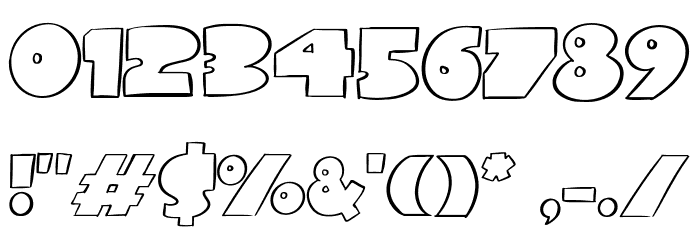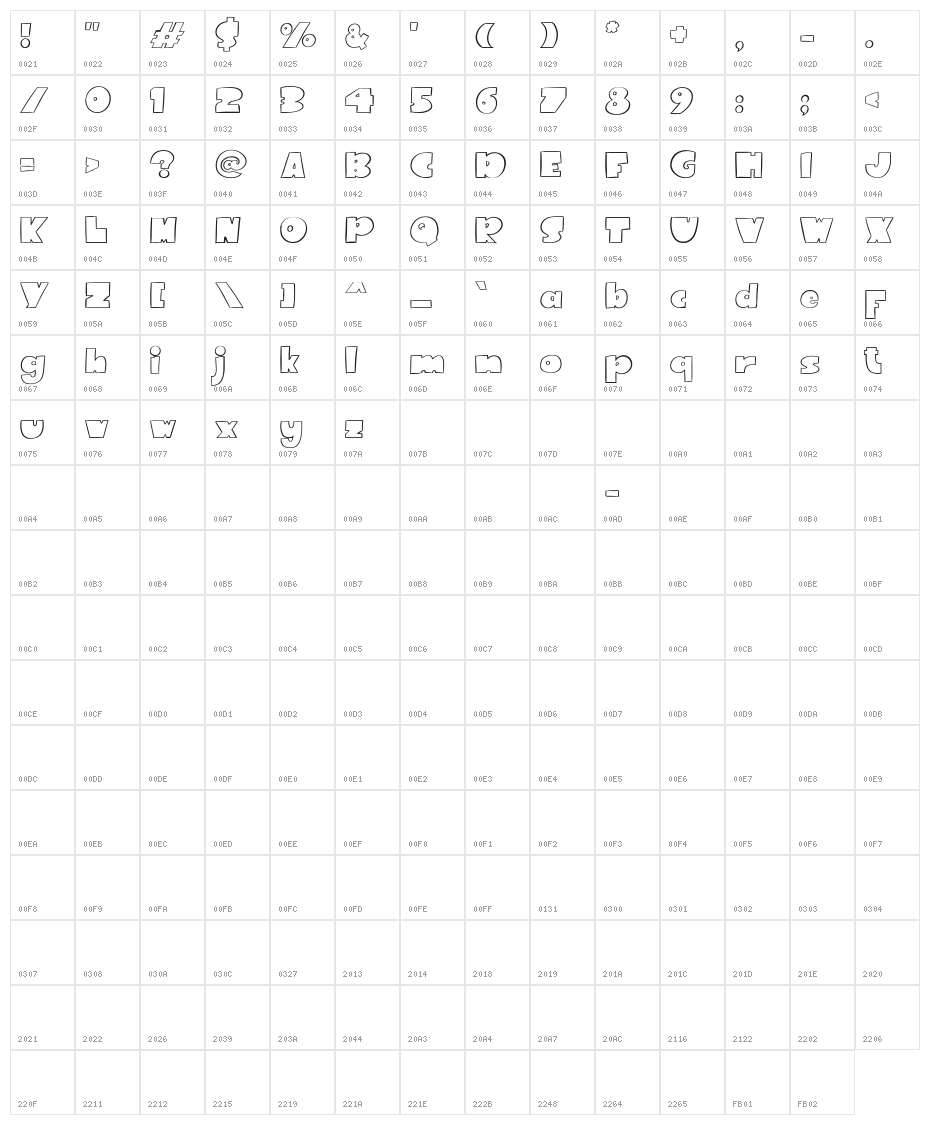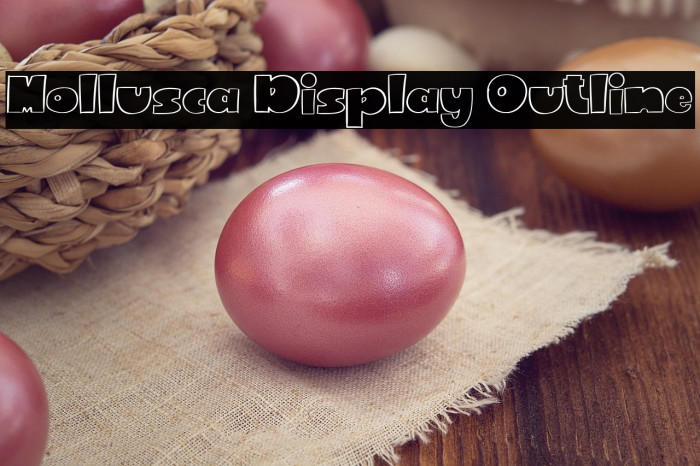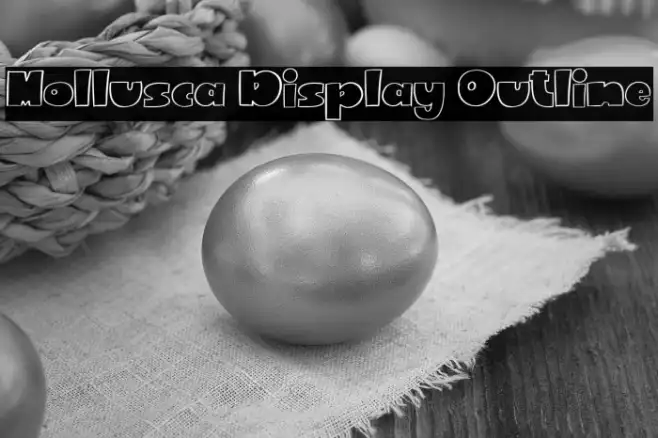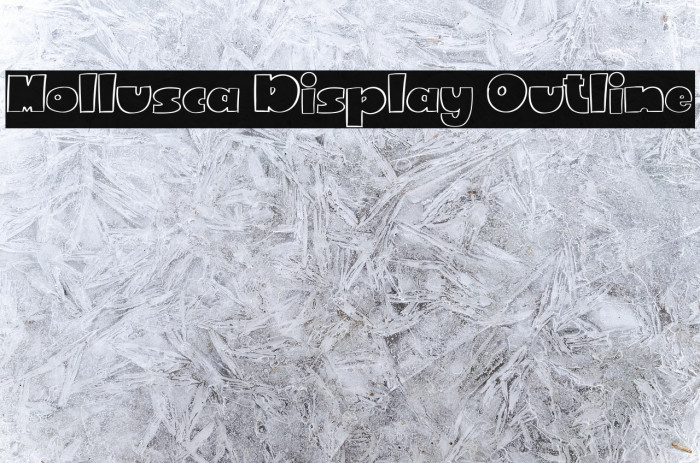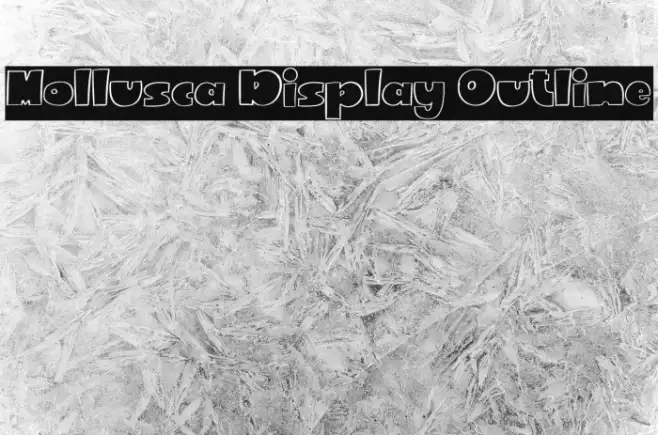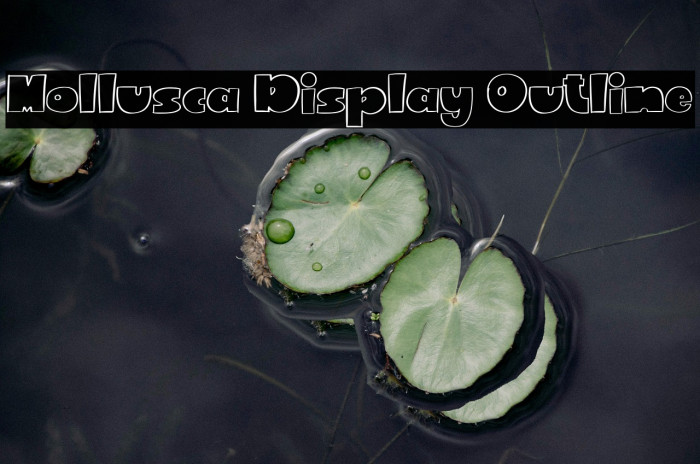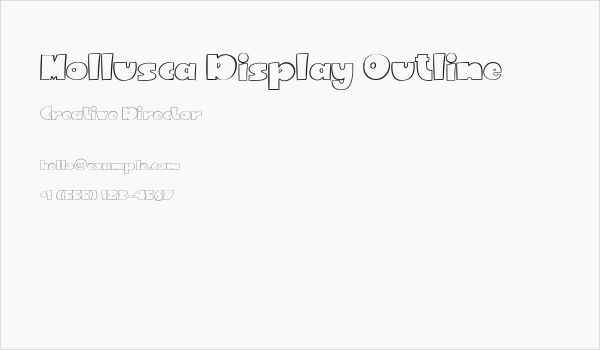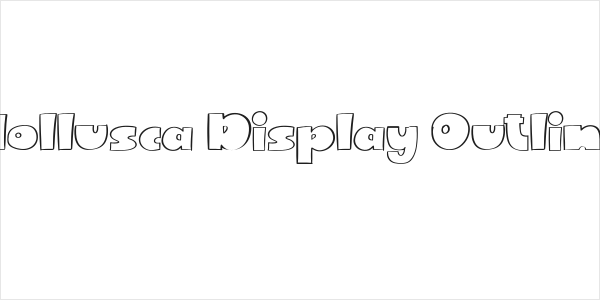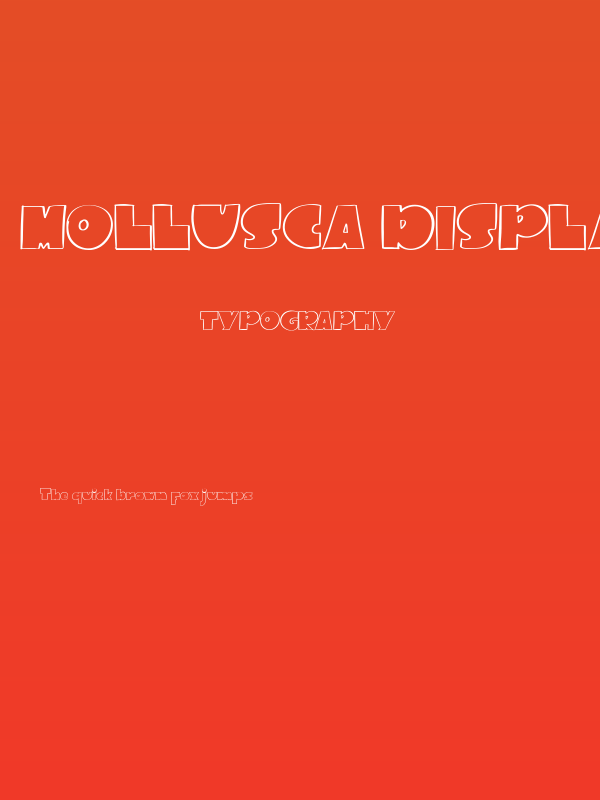
Mollusca Display Outline Font
Mollusca Display Outline Description
This font features a bold, playful outline style that gives each character a distinct and eye-catching appearance. The letters are designed with a chunky, cartoonish flair, making them ideal for projects that require a fun and informal touch. The uppercase and lowercase characters maintain a consistent width and height, contributing to a cohesive look. The numbers and special characters follow the same playful design, ensuring uniformity across all text elements. The font's outline style adds a layer of depth and dimension, making it suitable for creative and artistic projects.
| Overall Style | Playful, Cartoonish, Fun |
| Proposed Projects | Ideal for children's books, comic strips, playful branding, and creative posters. |